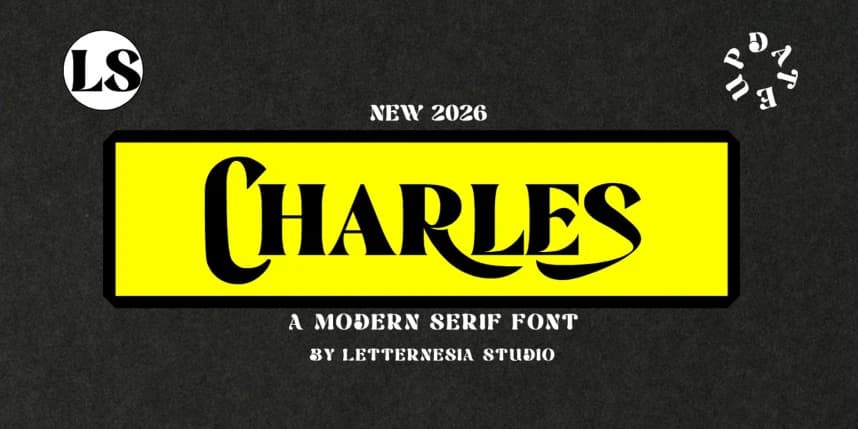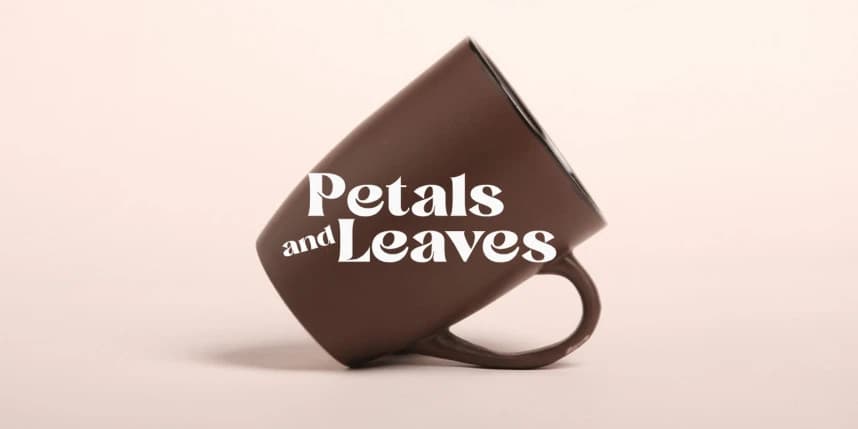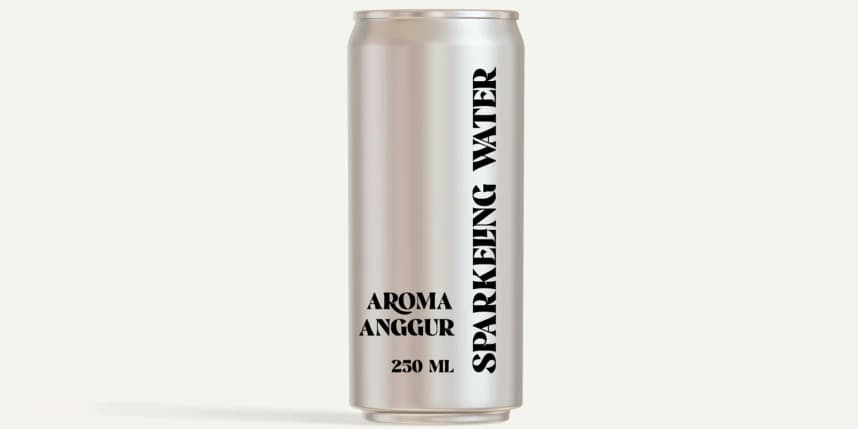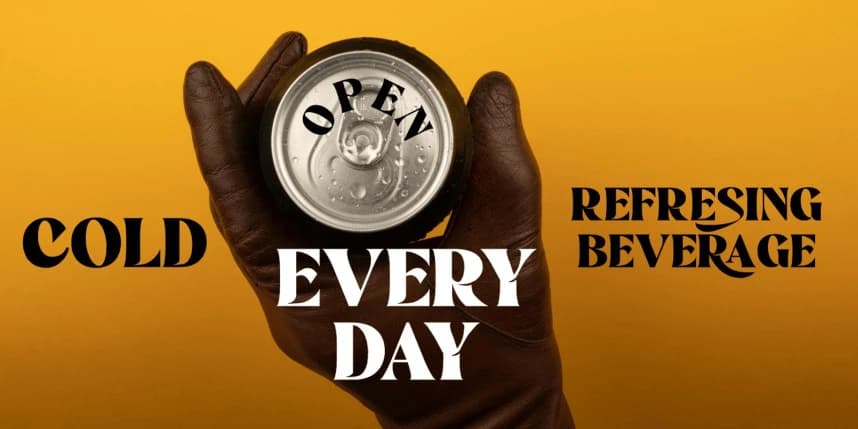
Lscharles Font
LSCHARTES Font is a bold and stylish display font designed to make a strong visual statement. With its unique character shapes and modern aesthetic, this font is perfect for headlines, logos, branding, posters, packaging, and creative design projects.